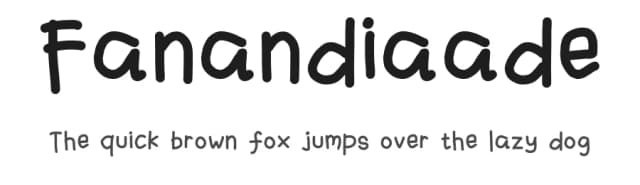
About Fanandiaa Font
Hi, this is font from Indonesian people. I made it by myself. so, I hope you enjoy with this font.
Fanandiaa Font is a script font that shines as a display or heading face. Pair it with a clean sans-serif or serif font for body text β the contrast creates a clear hierarchy while the two styles stay balanced and easy to read.
Fanandiaa Font
by mochaffff